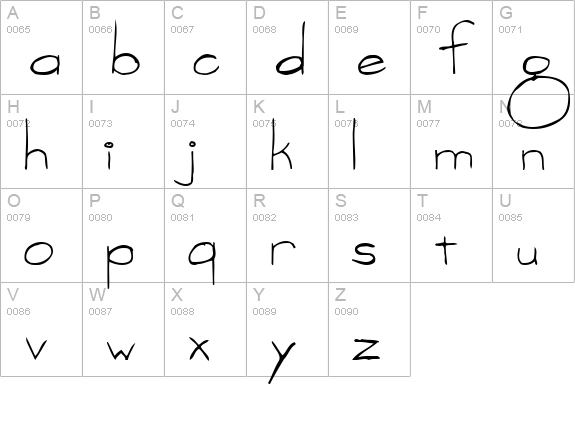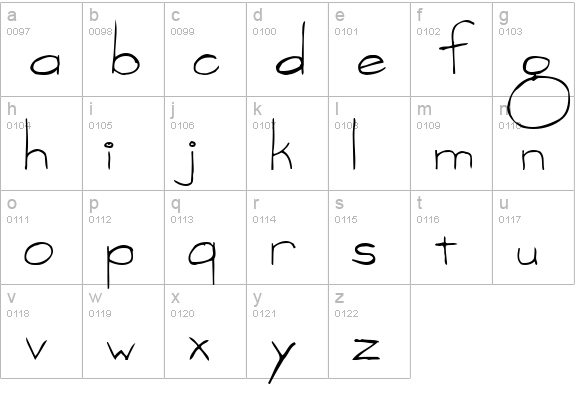
vargas Font Details
Vargas Font, a contemporary and versatile typeface, is sure to captivate with its elegant and modern design. Crafted with meticulous attention to detail, each character of Vargas Font exudes a sense of sophistication and style. With its clean lines and graceful curves, this font is perfect for a wide range of creative projects. Whether you are designing a logo, creating a brand identity, or crafting eye-catching headlines, Vargas Font will effortlessly elevate your work to new heights. What sets Vargas Font apart is not only its exceptional aesthetics but also its accessibility. It is freely available to download at FontsMarket.com, making it easily accessible to designers, typographers, and enthusiasts alike. This means that you can add this stunning font to your font library without breaking the bank. Vargas Font offers a vast array of options, including multiple weights and styles, ensuring that you have the versatility needed to bring your creative vision to life. Whether you prefer a bold and impactful statement or a more subtle and refined touch, Vargas Font has you covered. With its timeless appeal and modern flair, Vargas Font is the perfect choice for projects that demand a touch of elegance and sophistication. Download this exceptional font today from FontsMarket.com and watch as your designs come to life with a touch of class and distinction.